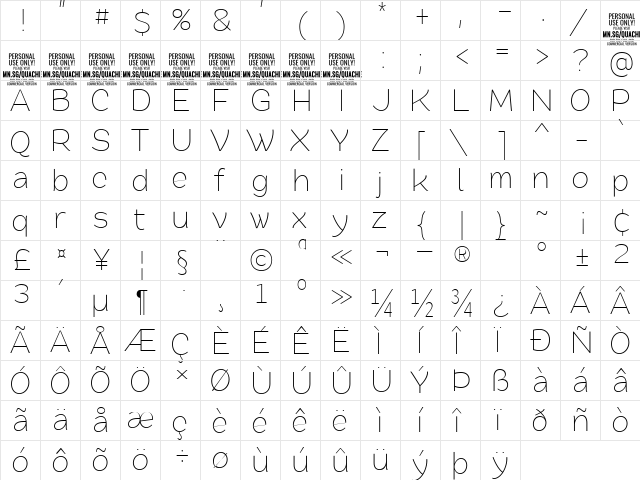
Quache Light Condensed
Design Context for Quache Typeface
Quache is a composed and adaptable typeface that performs quietly and consistently across a wide range of design contexts. The delicate stroke weight brings airiness and refinement to layouts. Its narrow stance lets it pack a punch even in space-constrained designs.